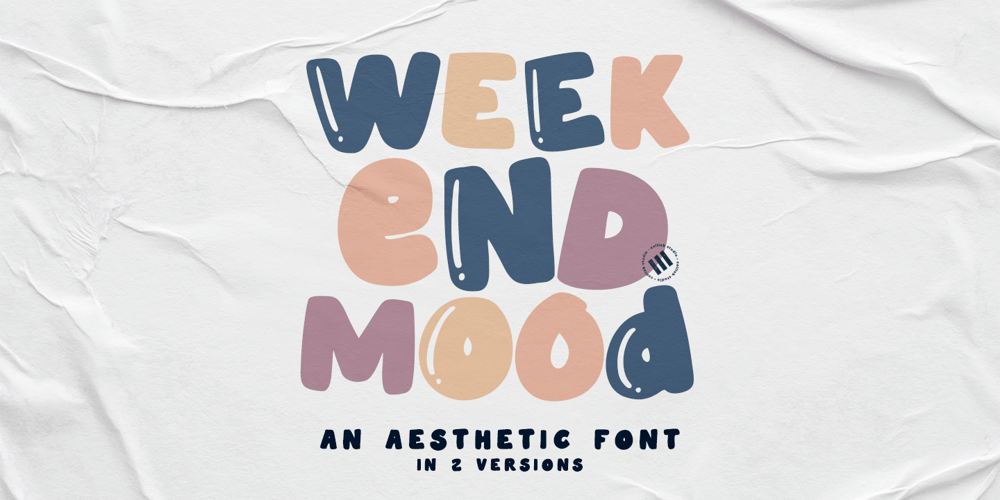
Weekend Mood Font Family was designed by Muh. Aswar and published by Colllab Studio. Weekend Mood contains 2 styles and family package options. Presenting Weekend Mood! An Aesthetic Font in 2 Versions. This font made with the perfect combination of each character. You can combine to get a unique combination. It looks original and can be used for all your project needs. Each glyph has its own uniqueness and when meeting with others will provide dynamic and pleasing proximity. This font can be used at any time and in any project. You can see in the presentation picture above, Weekend Mood looks unique and playful style on design projects.So, Weekend Mood can’t wait to give its touch to all your design projects such as quotes, crafted, kids design, poster design, personal branding, promotional materials, website, logotype, product packaging, etc.WHAT’S INCLUDED?1. Weekend Mood Regular (Version One) • The first version comes with uppercase, lowercase, numeral, punctuation, symbols, and Standard Latin Multilingual Support (Afrikaans, Albanian, Catalan, Danish, Dutch, English, French, German, Icelandic, Indonesian, Italian, Malay, Norwegian, Portuguese, Spanisch, Swedish, Zulu, and More).2. Weekend Mood Alt (Version Two) • The second version comes with uppercase, lowercase, numeral, punctuation, symbols, and Standard Latin Multilingual Support (Afrikaans, Albanian, Catalan, Danish, Dutch, English, French, German, Icelandic, Indonesian, Italian, Malay, Norwegian, Portuguese, Spanisch, Swedish, Zulu, and More).A Million ThanksColllab Studio